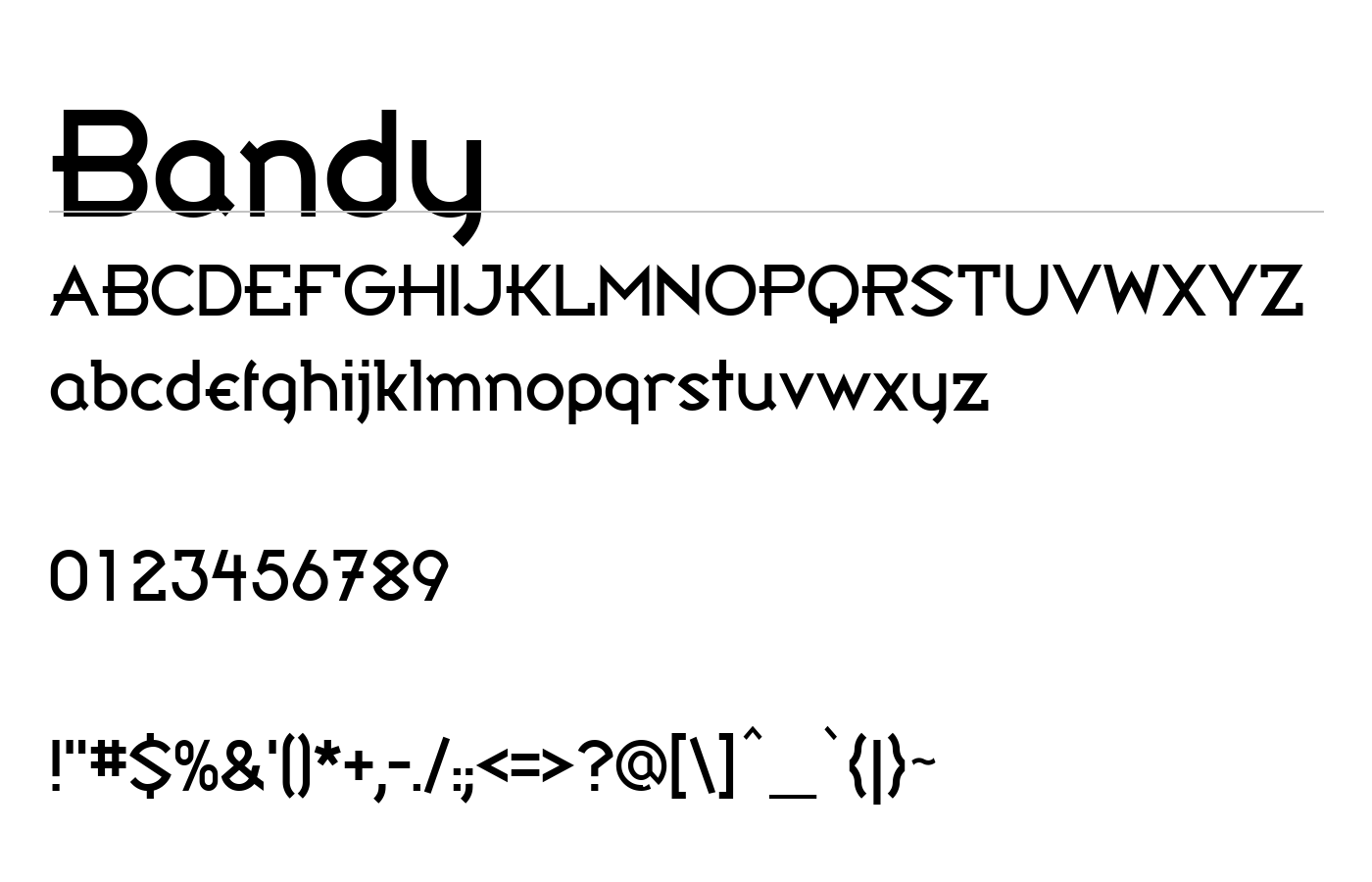
Bandy is a distinctive sans serif font with a unique geometric and slightly condensed design, featuring sharp, angular terminals and playful curved details that give it a quirky, modern personality. Its clean lines combined with unusual letter shapes make it ideal for creative branding, logos, and headline use where a stylish yet approachable look is desired. This font stands out by blending a futuristic edge with friendly readability, perfect for projects seeking a contemporary and memorable appearance.
Bandy Font